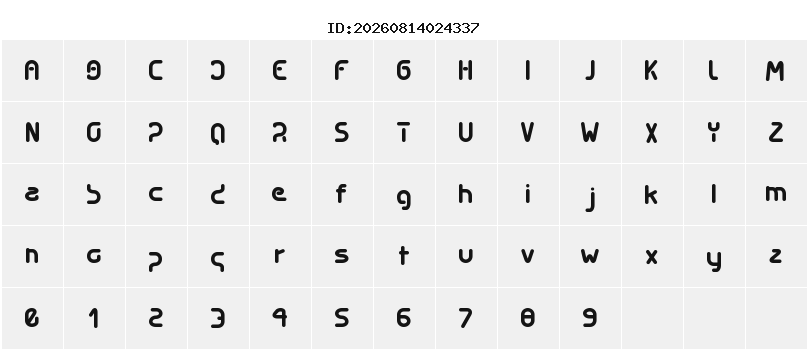
Swish Preview
• Font Name: Swish
• Designer: Eric DJENGUE
• Description: Swish is designed as a font character title.
Swish.ttf is a modern, elegant sans-serif font designed for ultimate readability and visual harmony. Perfect for branding, headlines, web design, and print materials.